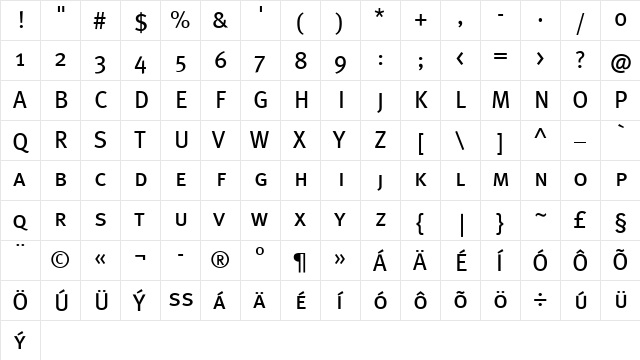
MetaBookCE Book Font Preview
MetaBookCE Book
MetaBookCE Book Font Details
Design Context for MetaBookCE Typeface
MetaBookCE offers clean, dependable letterforms without strong stylistic allegiance, making it a practical choice for designers who need flexibility.